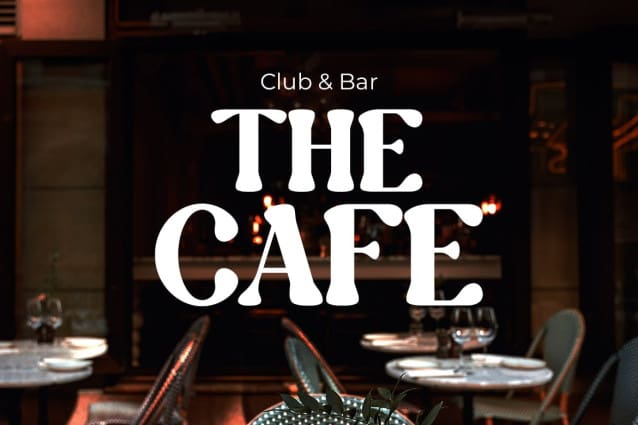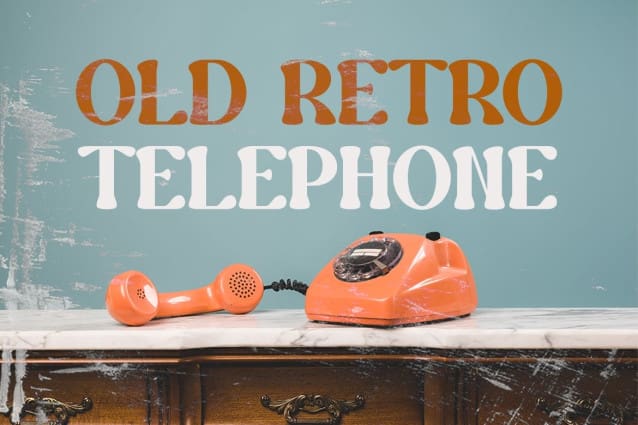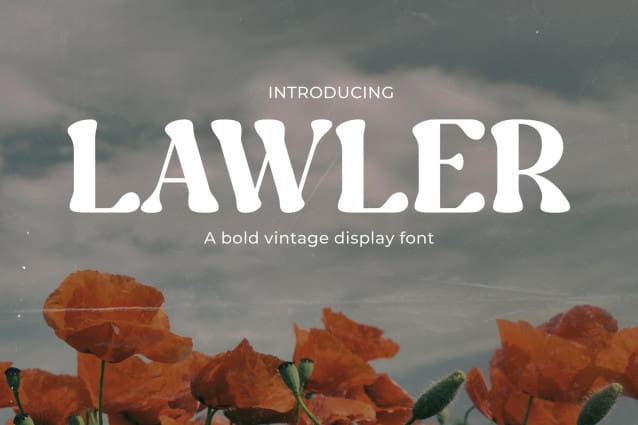
Lawler Vintage Font
Lawler Vintage Font, a font that effortlessly combines vintage charm and timeless elegance. Whether you’re working on fashion, logos, quotes, invitations, signage, posters, greeting cards, packaging, branding, wedding quotes or cover albums, Lawler brings a touch of sophistication to each room.
Lawler’s vintage-inspired style captures the essence of a bygone era and brings classic beauty to your designs. Its retro look evokes memories of a time when design was imbued with grace and lasting appeal. Lawler embodies that vintage elegance, making it the ideal choice for a variety of projects.
Enhance your branding materials with Lawler and see how this font gives your logos and packaging a classic and distinguished look. The friendly, easy-to-read typeface ensures your message is conveyed with clarity and style.
For wedding-related designs, Lawler adds a touch of romance and nostalgia to wedding invitations and quotes. It sets the mood for a memorable celebration and completes your special day with timeless grace.
With Lawler Vintage, your album covers and posters stand out with their vintage charm, making them unique and captivating. Packaging and greeting cards benefit from its classic touch, creating an unforgettable impression.
Bring a touch of history and sophistication to your design projects with Lawler Vintage. Make this font your partner in creating pieces that exude timeless elegance. Embrace the beauty of the past and seamlessly integrate it into your contemporary designs with Lawler.